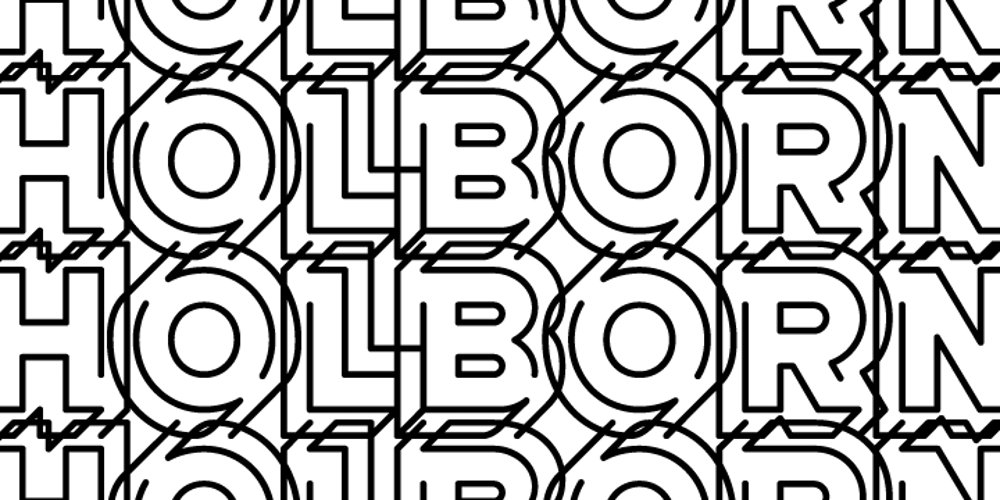
AT Move Holborn Font Family was designed by André Toet, Jasper Nijssen and published by André Toet Design. AT Move Holborn contains 1 styles and family package options. HOLBORN Aptly named after ‘High Holborn’, a high-street in London where the Central School of Art & Design was based. A font, just in capitals, based on the original design and the earlier sketches (1976) by André Toet. The strong optical illusion in this alphabet makes it an outstanding typeface. Concept/Art Direction/Design: André Toet © 2017